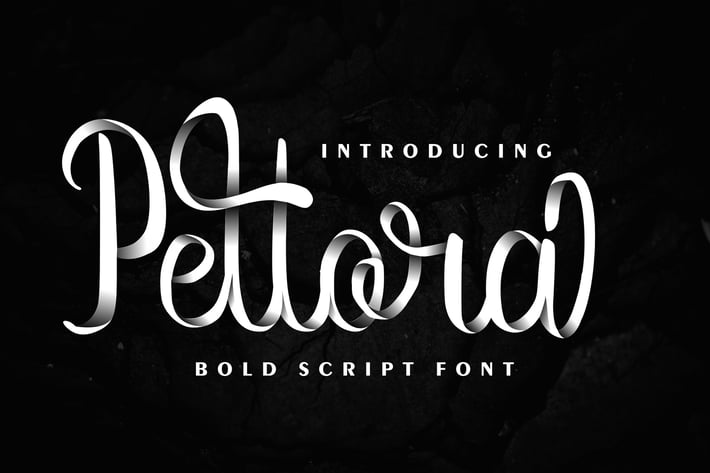
Pettora | Bold Script Font
Pettora | Bold Script Font with a calligraphy style, So beautiful on invitation like greeting cards, branding materials, business cards, quotes, posters, and more!